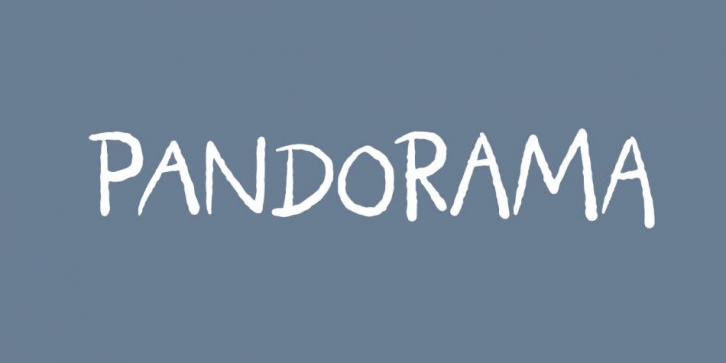
Designed by Jakob Fischer, Pandorama is a brush display, hand display and hand drawn font family published by Bogstav.
Comic brush font with bouncy letters.
The font has multilingual support as well as contextual alternates!